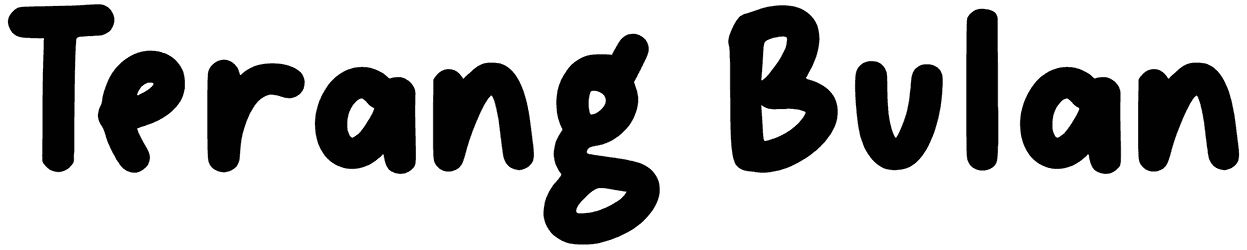
Terang Bulan Font
Terang Bulan can make your design unique, like a fingerprint, and combine each letter with your style. And yet, despite its individuality, this handwritten font can bring you universal appeal and create a deep connection…
Terang Bulan can make your design unique, like a fingerprint, and combine each letter with your style. And yet, despite its individuality, this handwritten font can bring you universal appeal and create a deep connection with the audience.
In today’s digital world, this script font can stand out for conveying a message and is an excellent choice for anything from wedding invitations to marketing materials. So if you want to capture the essence of what you are saying, consider Terang Bulan.